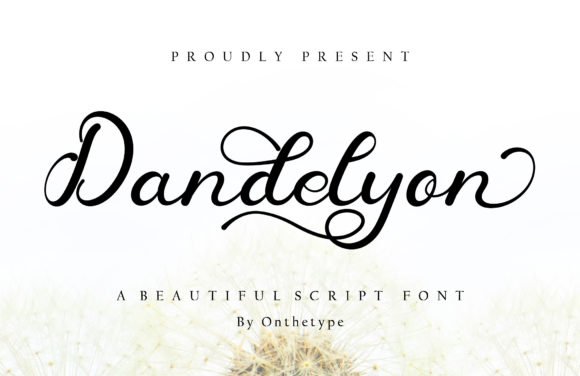
Introduction to Dandelyon Font
Dandelyon is a sweet and cursive handwritten font.
This gentle font will look gorgeous on a variety of design ideas Dandelyon is PUA encoded which means you can access all of the amazing glyphs and ligatures with ease.
Dandelyon Font offers exceptional quality and versatility, making it a valuable addition to your design toolkit. Whether you’re creating for personal projects or commercial use, Dandelyon Font delivers professional results.